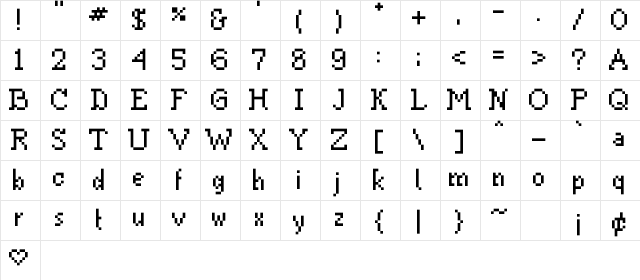
ThisSmacky Medium Free Font
ThisSmacky Medium
Design Context for ThisSmacky
ThisSmacky is a composed and adaptable typeface that performs quietly and consistently across a wide range of design contexts.
Pro Tip: Use ThisSmacky in both headline and body roles to test its range before committing to a single application.